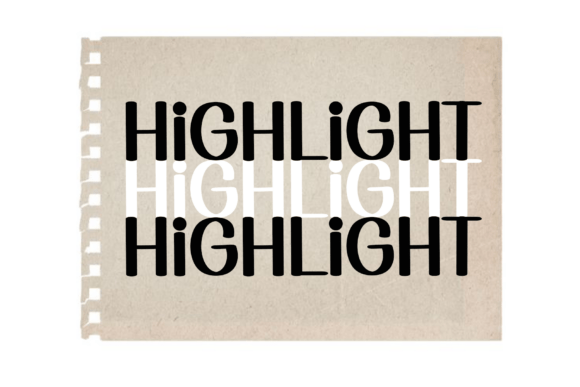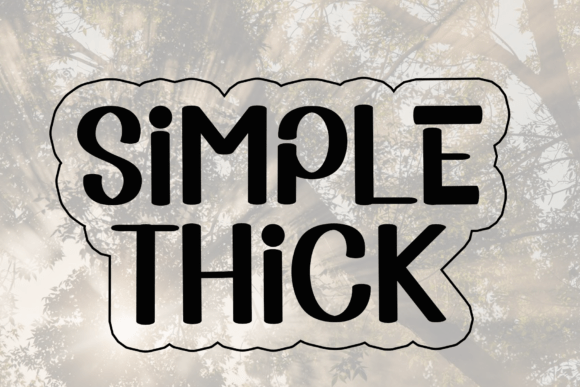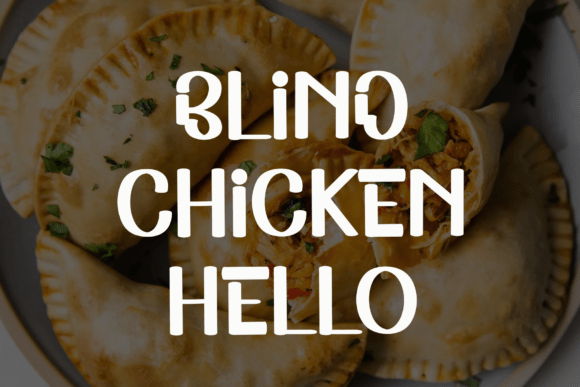
The Perfect Cup: Discovering the Charm of Coffee Time Font
Ah, the quest for the perfect font. You know, that one moment when you’re working on a design project, and everything is going great, but then you hit a roadblock – the font just isn’t right. I recall a particularly frustrating experience when a client asked for a logo that exuded warmth and personality. I scoured font libraries, but nothing seemed to fit the bill. That’s when I stumbled upon Coffee Time Font, and it was love at first sight! ✨
A Timeless Beauty: What Makes Coffee Time Font Special
Coffee Time is a lovely and timeless handwritten display font, perfect for creating eye-catching logos, branding, and quotes. Every letter has a unique and beautiful touch, which will make your design come alive! It’s designed to bring a sense of warmth and personality to your work, making it an excellent choice for designers, crafters, and creative hobbyists.
- ✨ Unique and beautiful letterforms that add a personal touch to any design
- ✅ Highly legible, even at larger sizes
- ✅ Extensive OpenType features, including glyphs and stylistic alternates
- ✅ Perfect for creating logos, branding, and quotes
- ⚠️ Some users might find the font a bit too ornate for certain projects
- 🤔 Limited use for body text due to its display nature
The Story Behind Coffee Time Font
Coffee Time Font was designed with the intention of creating a warm and inviting typeface that would evoke the feeling of a cozy coffee shop. The designer, inspired by the rich flavors and aromas of coffee, aimed to craft a font that would bring a sense of comfort and personality to any design. Whether you’re a designer, crafter, or creative hobbyist, Coffee Time Font is sure to become your new favorite.
| Font Name | Coffee Time Font |
| Author | Sansana |
Q: What makes Coffee Time Font unique?
A: Coffee Time Font features unique and beautiful letterforms, extensive OpenType features, and a highly legible design.
Q: Is Coffee Time Font suitable for body text?
A: Due to its display nature, Coffee Time Font is best suited for headlines, titles, and short text passages.